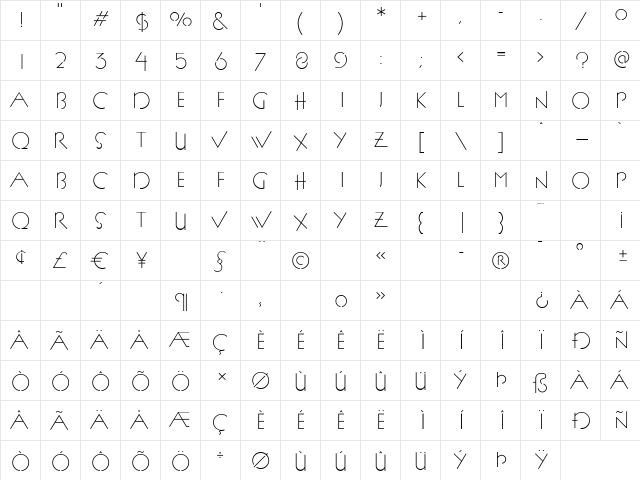
P22 FLLW Exhib Light Regular
| Foundry | P22 type foundry |
| Designer | Frank Lloyd Wright, Christina Torre |
Design Context for P22 FLLW Exhib Light Typeface
P22 FLLW Exhib Light offers clean, dependable letterforms without strong stylistic allegiance, making it a practical choice for designers who need flexibility. The delicate stroke weight brings airiness and refinement to layouts.